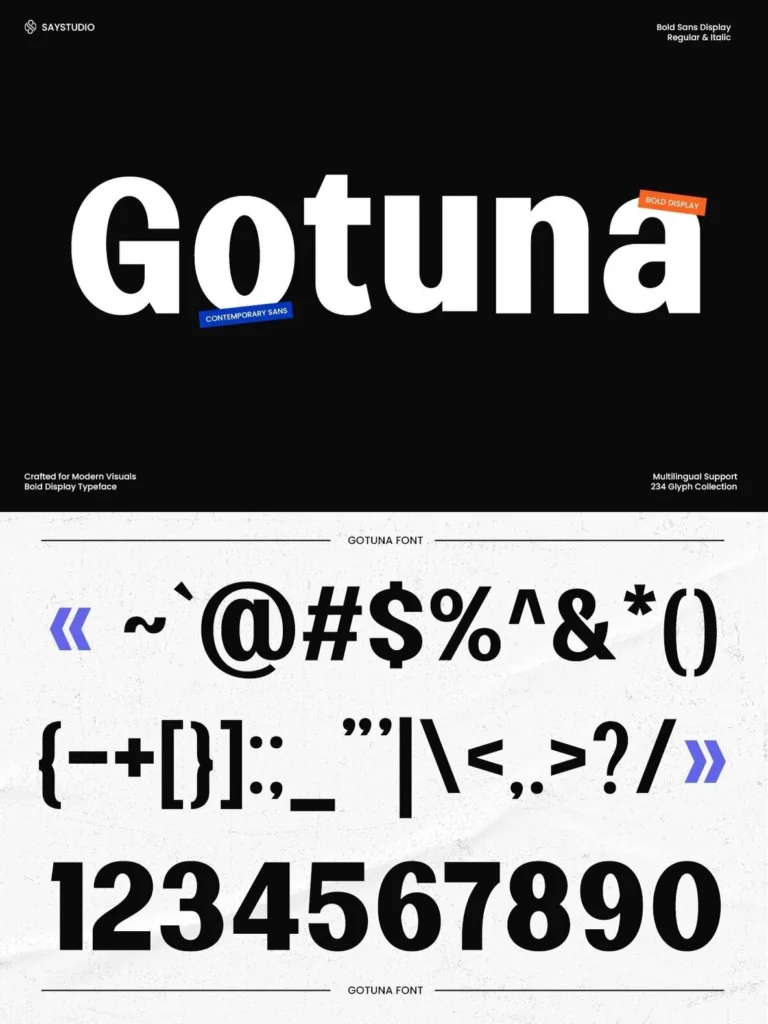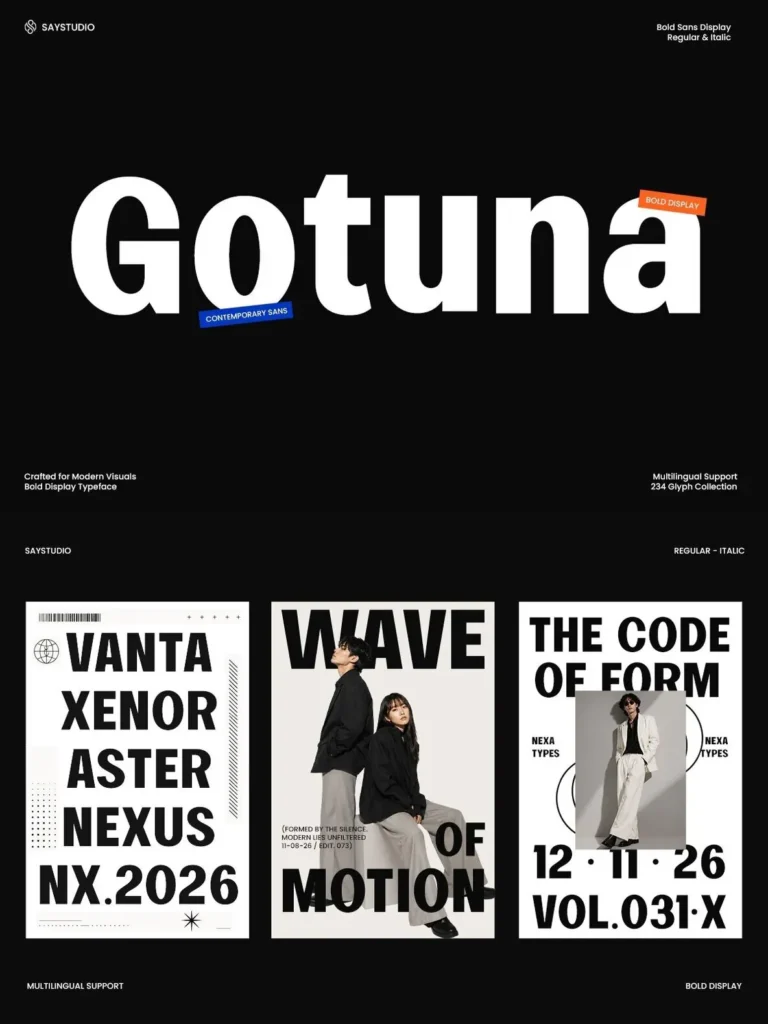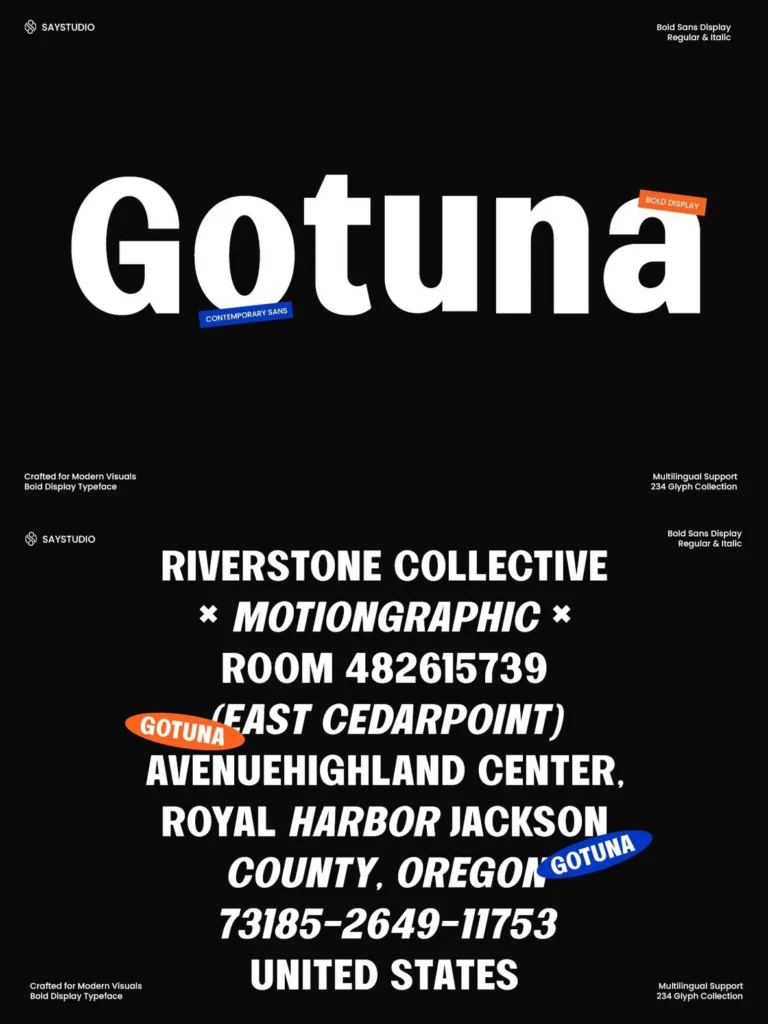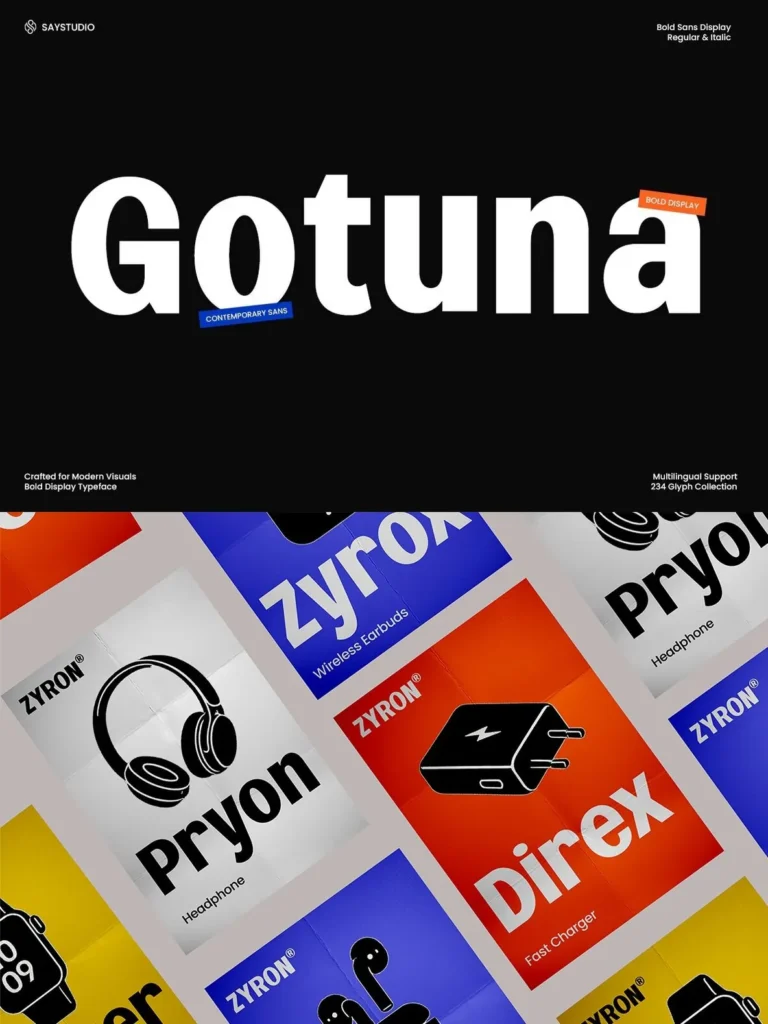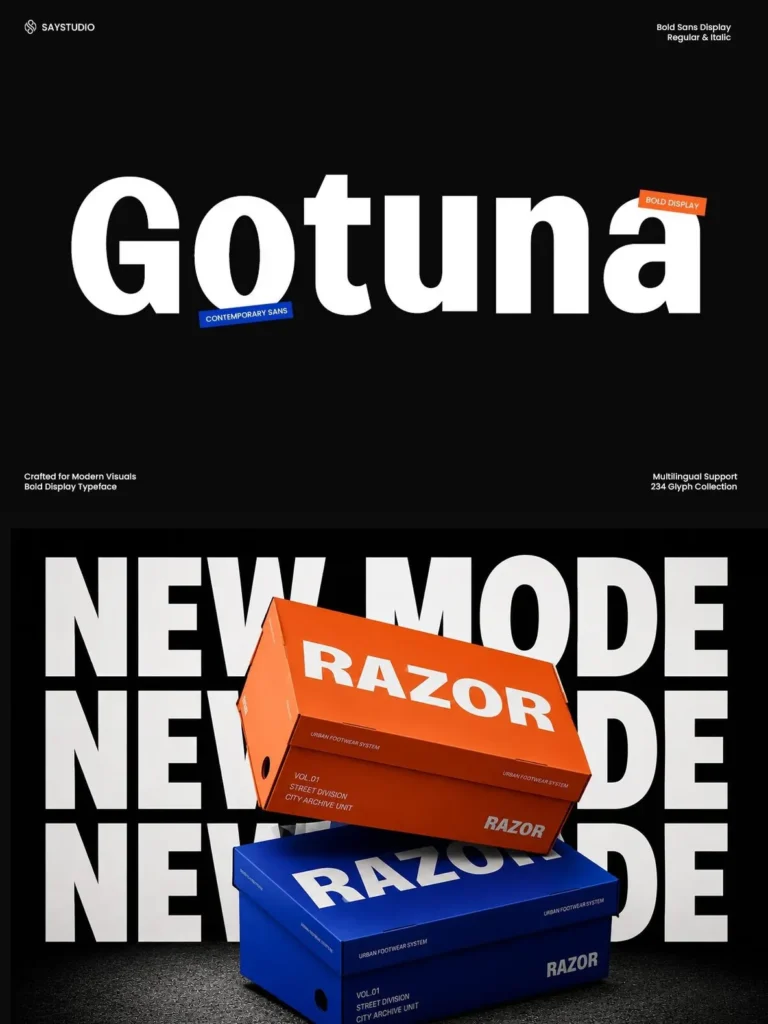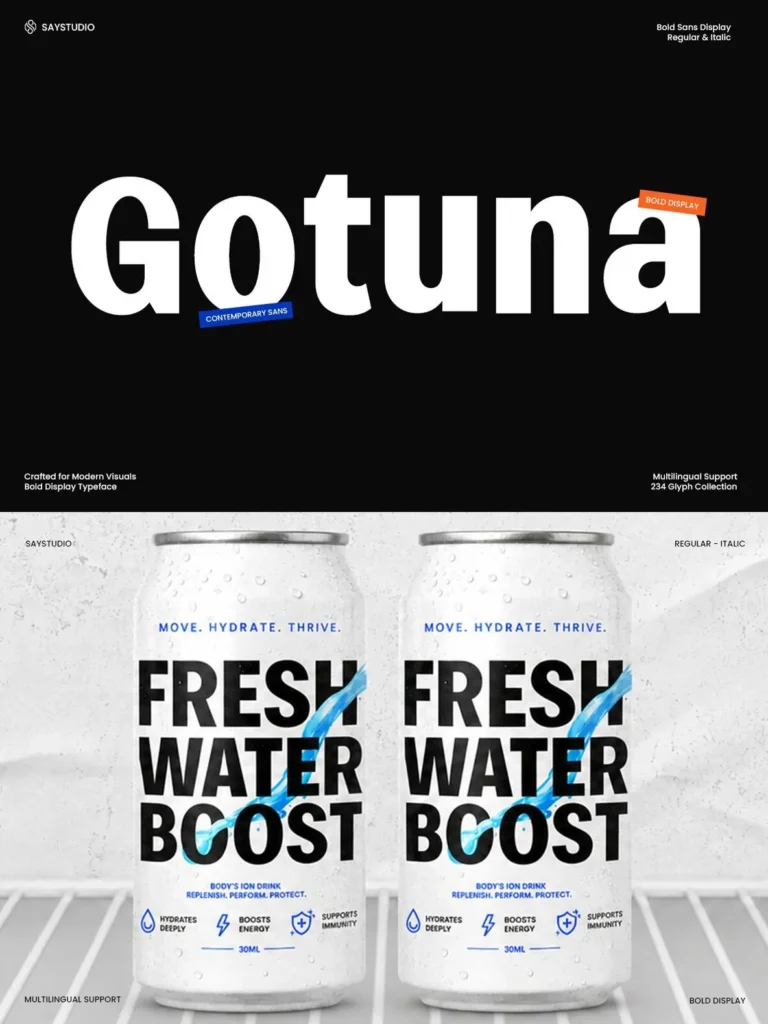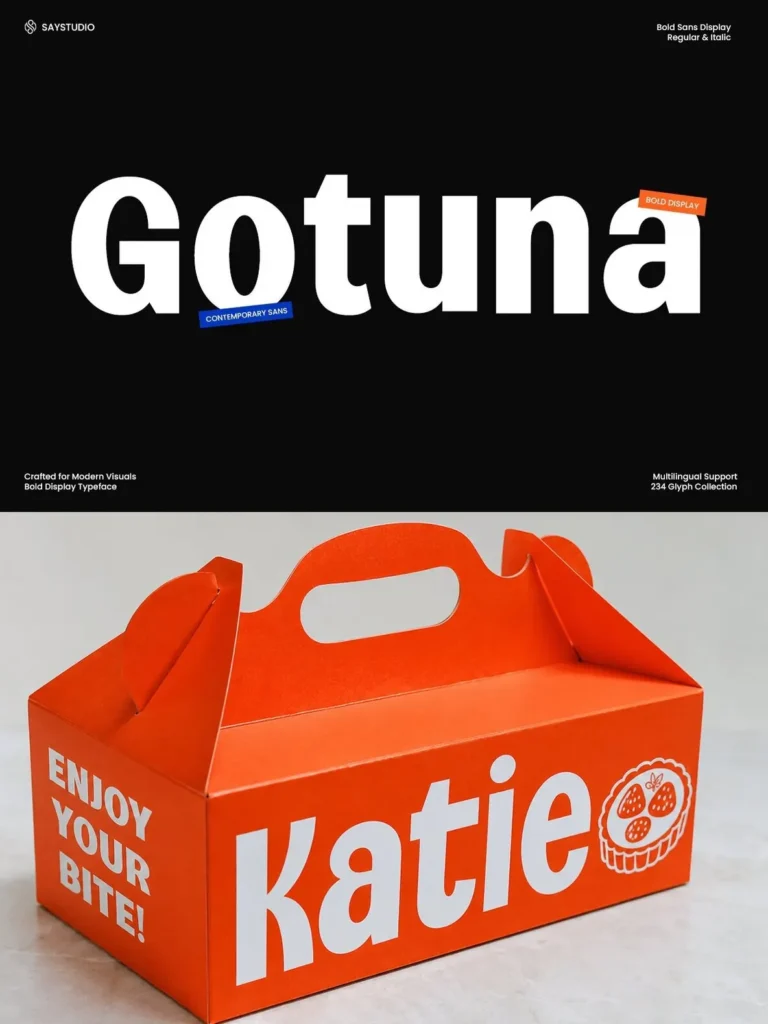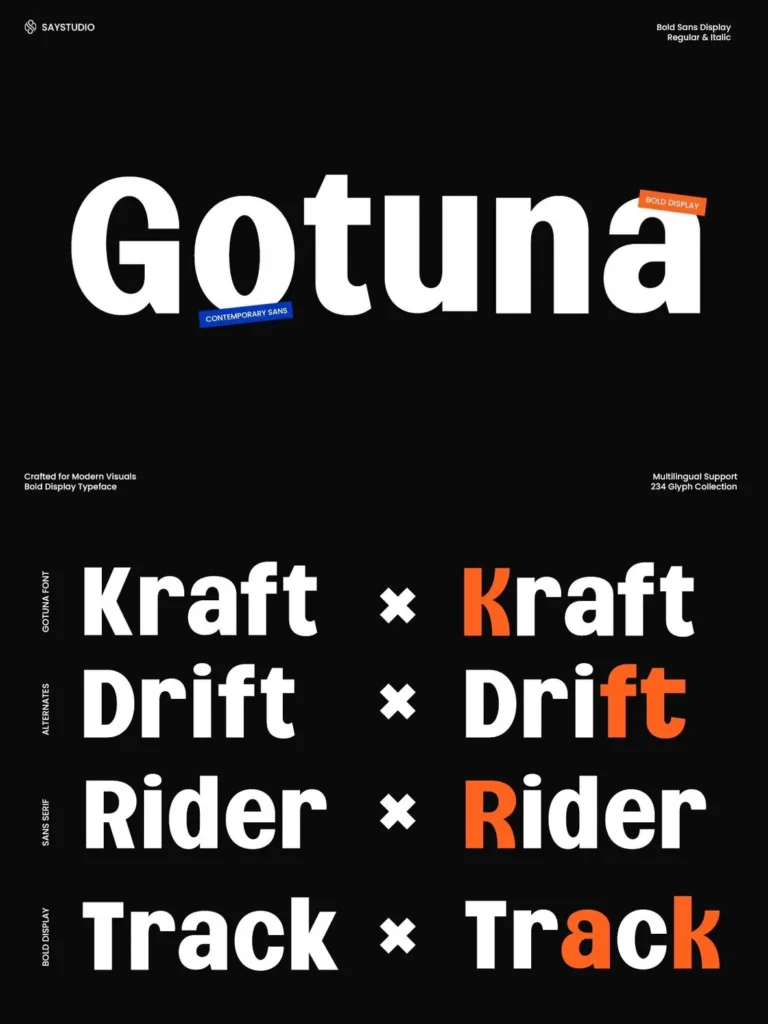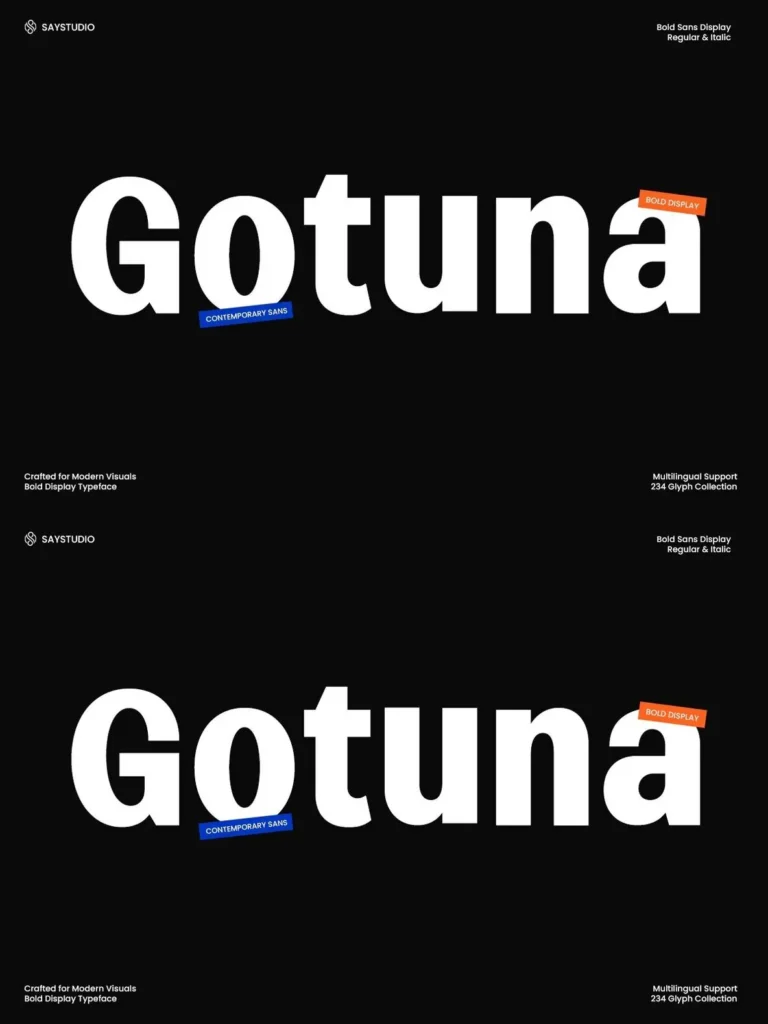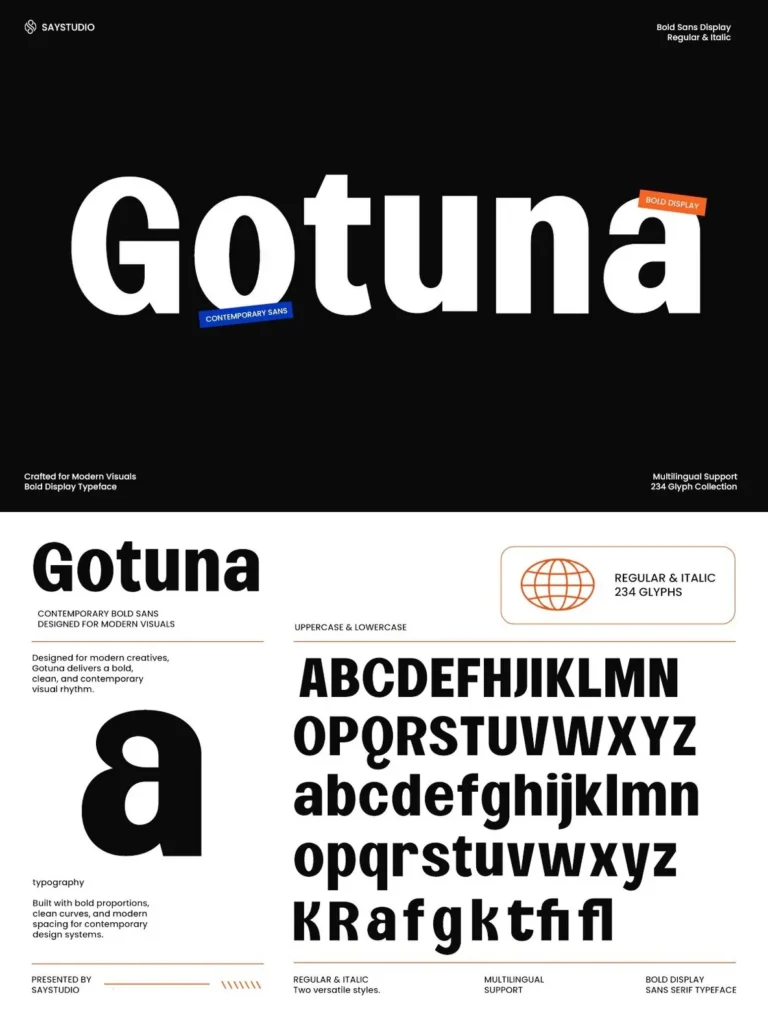
Gotuna — Bold Geometry for Identity
Gotuna is a contemporary bold sans serif typeface by Say Studio, made for modern visual communication. Its strong geometric structure, clean curves, and confident proportions give designers high-impact typography for branding, editorial layouts, advertising campaigns, digital products, and visual identities.
Gotuna balances boldness with clarity. It includes powerful uppercase forms, highly readable lowercase characters, and carefully spaced letterforms that create a clean, professional rhythm. Its modern aesthetic suits logos, headlines, packaging, posters, social media content, UI design, and contemporary brand systems.
With Regular and Italic styles, multilingual support, and an extensive glyph collection, Gotuna gives designers a bold display font that feels fresh, minimal, and adaptable. Use it for a startup identity, fashion campaign, or modern editorial project when the design calls for confidence and visual strength. Thanks, have a nice day — Say Studio.
Regular and Italic Style
Stylistic Alternates
Stylistic Ligature
Uppercase and Lowercase
Number, Symbol, and Punctuation